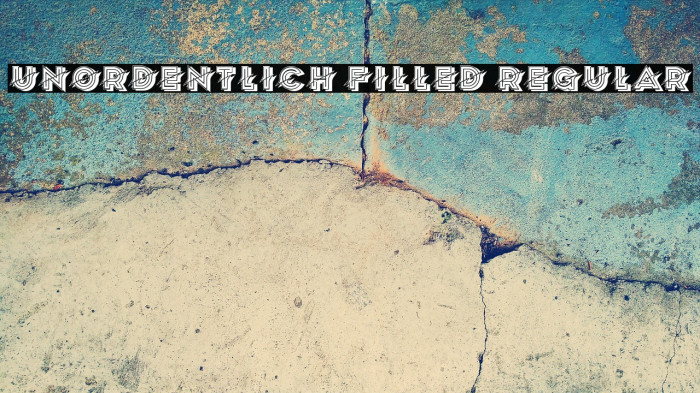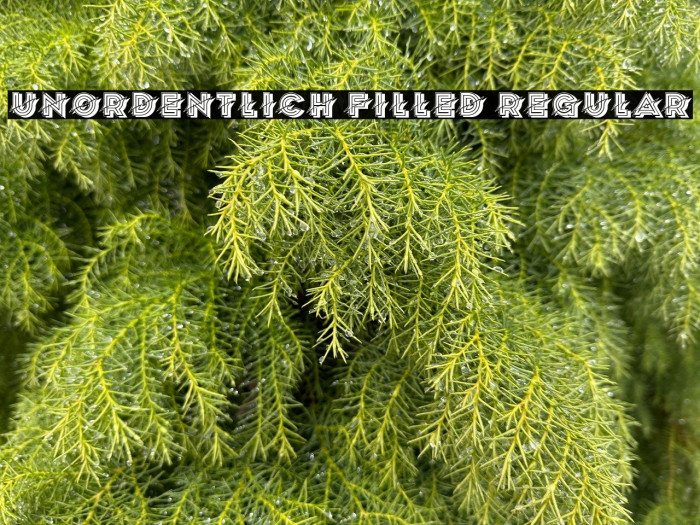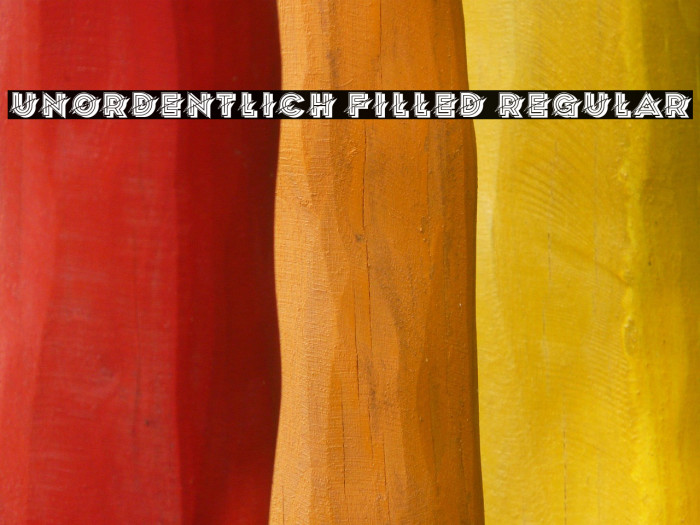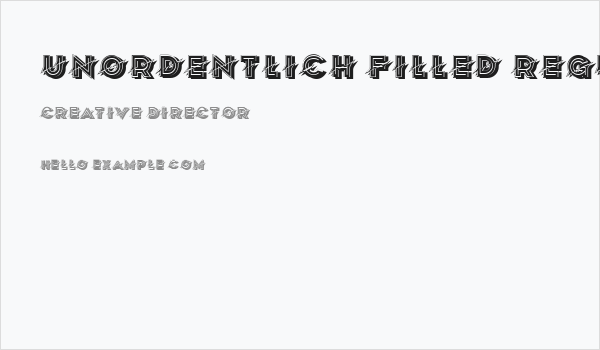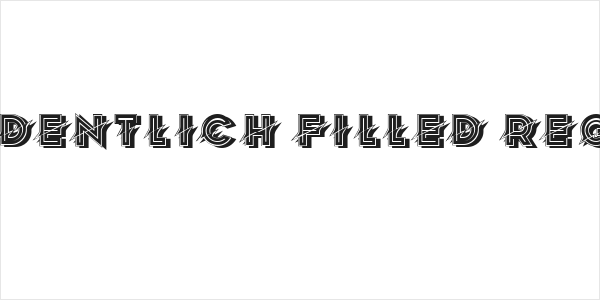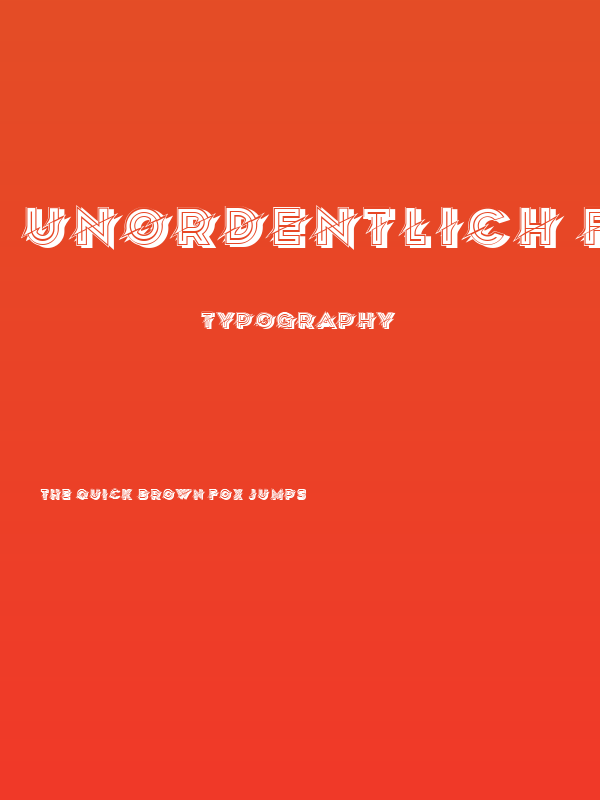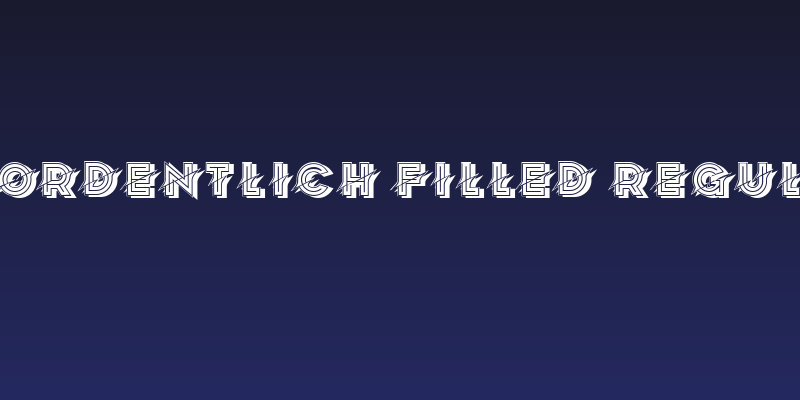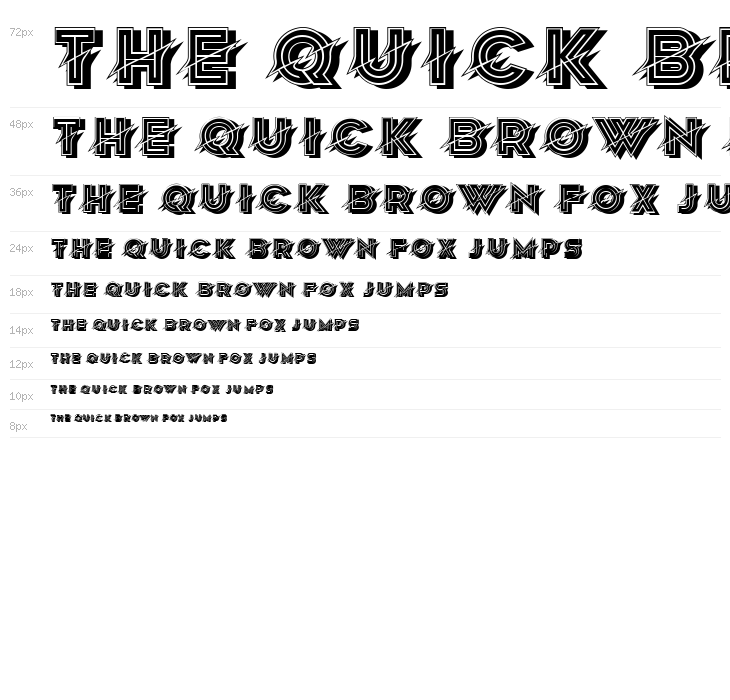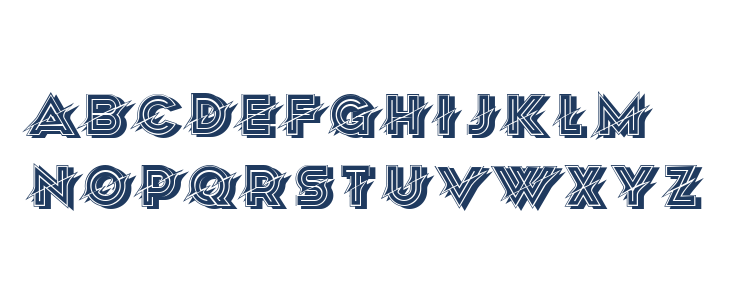
Unordentlich Filled Regular Font
Unordentlich Filled Regular Description
This font features a bold and dynamic design with a filled, layered appearance that creates a sense of depth and movement. The letters are constructed with overlapping lines and geometric shapes, giving them a unique, almost chaotic aesthetic. The style is eye-catching and modern, making it suitable for projects that require a strong visual impact. The uppercase and lowercase letters maintain a consistent style, with sharp angles and a sense of energy that is both playful and assertive. The font's intricate design makes it ideal for creative and artistic applications.
Proposed ProjectsIdeal for posters, album covers, branding, and any project needing a bold visual statement.